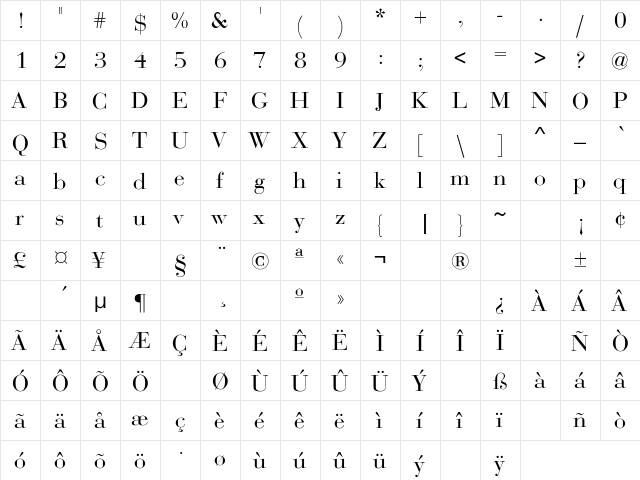
Pina Light Regular
Design Context for Pina Light Typeface
Pina Light offers clean, dependable letterforms without strong stylistic allegiance, making it a practical choice for designers who need flexibility. Its slender proportions lend an understated elegance to any composition.
Pro Tip: Use Pina Light in both headline and body roles to test its range before committing to a single application.